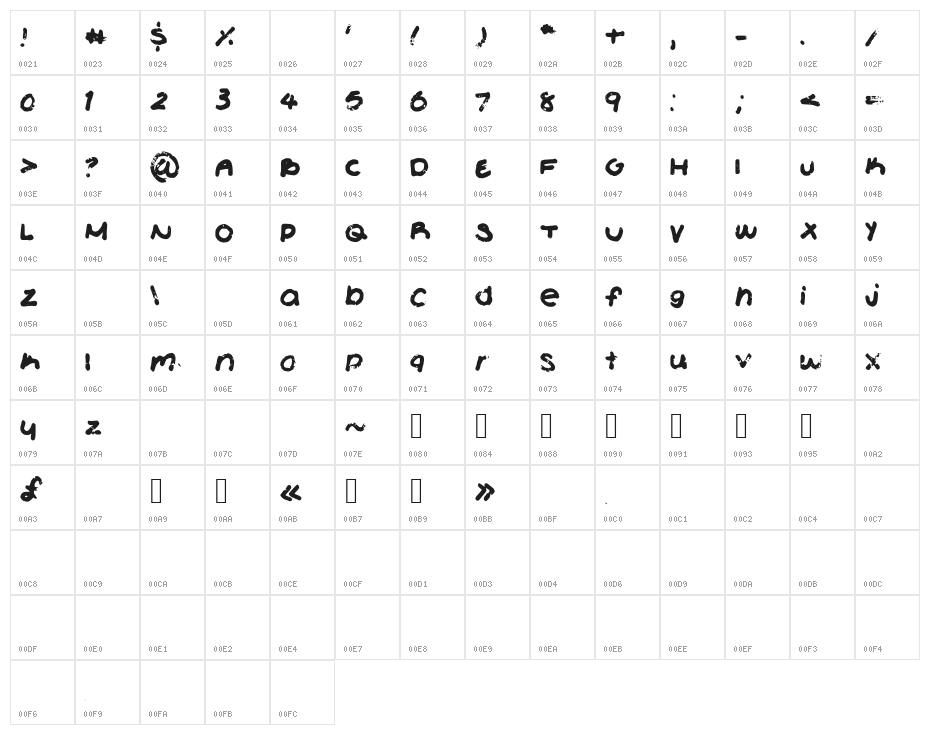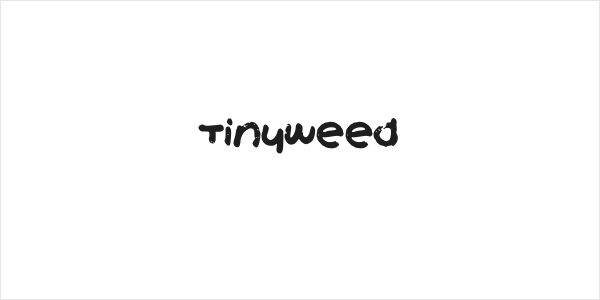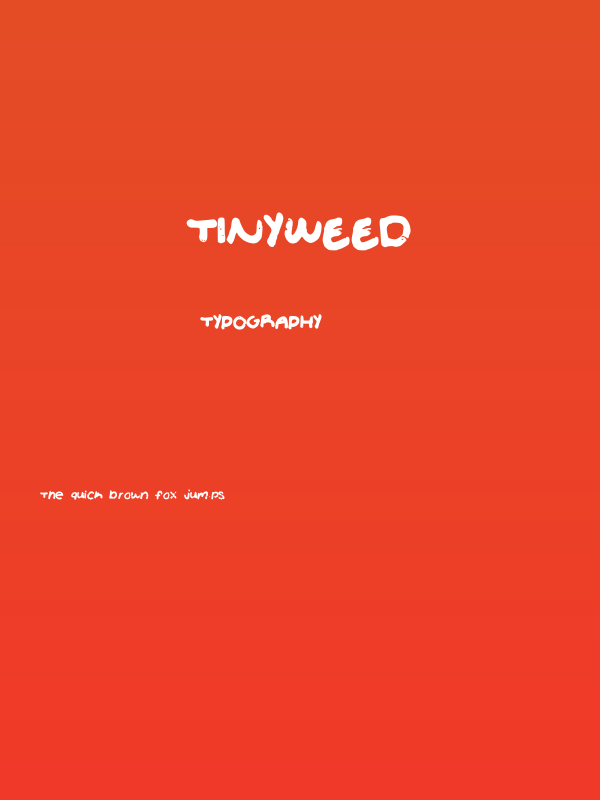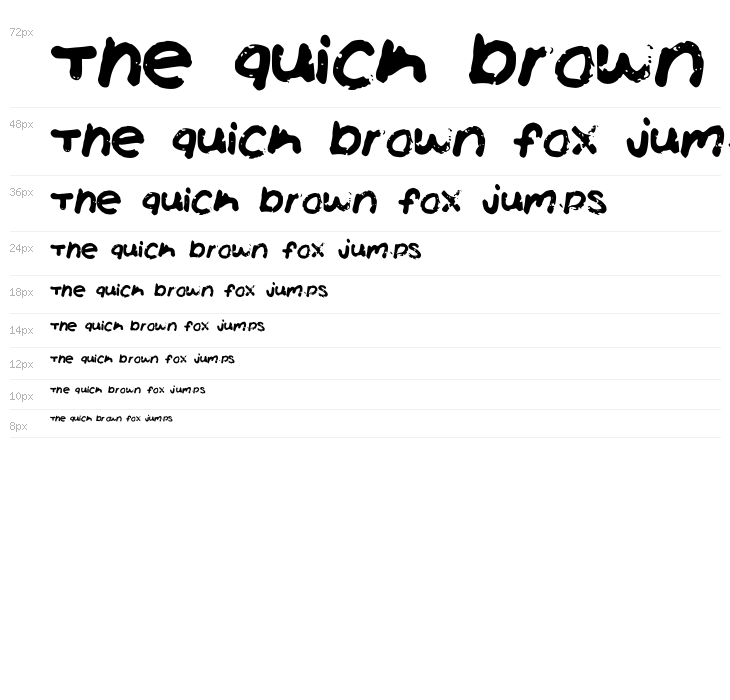
TinyWeed Font
TinyWeed Description
This font features a bold, grungy style with a distressed texture that gives it a raw and edgy appearance. The characters are irregular and have a hand-painted look, with uneven edges and a playful, dynamic feel. The uppercase and lowercase letters maintain a consistent style, while the numbers and special characters complement the overall aesthetic. The font's unique design makes it stand out, ideal for projects that require a bold statement or an artistic touch.
| Use Case | Logos, Posters, Artistic projects |
| Proposed Projects | Ideal for album covers, posters, graffiti art, and urban-themed designs. |